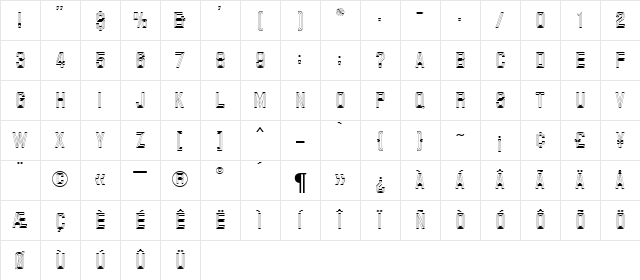
Carplate Regular Free Font
Carplate Regular
Design Context for Carplate
Carplate is a composed and adaptable typeface that performs quietly and consistently across a wide range of design contexts.